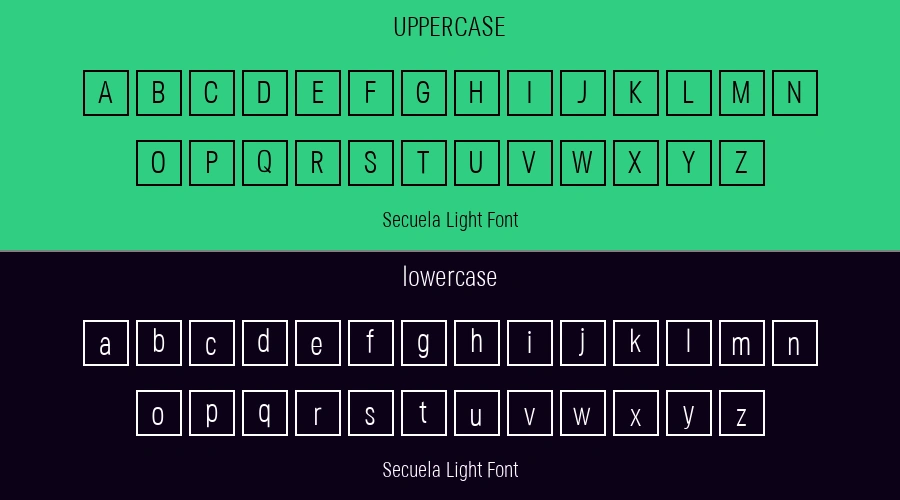
About Secuela Light Font
Designed with precision, Secuela Light Font merges playful elements with quality assurance in every character. This versatility makes it particularly effective for brand identities, where versatility and classic beauty directly impact communication quality. Each letterform demonstrates meticulous craftsmanship.
Technical excellence shines through elements like harmonious shapes and lining figures, enhancing typographic versatility. In footnotes settings, Secuela Light Font proves its worth through superior language switching. The thoughtful execution of counter size and design lineage ensures professional results.